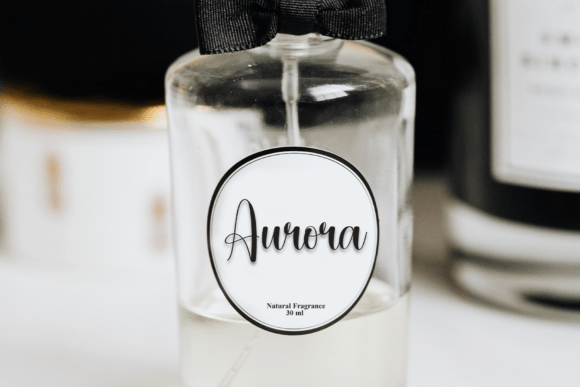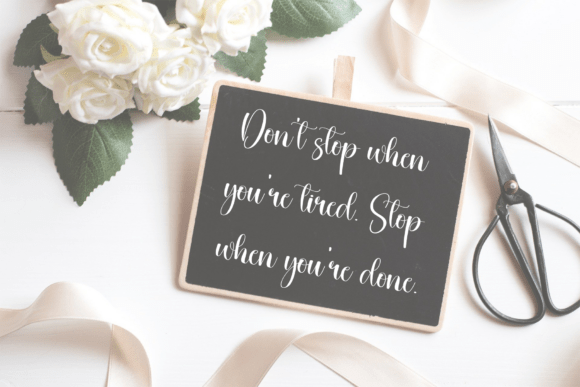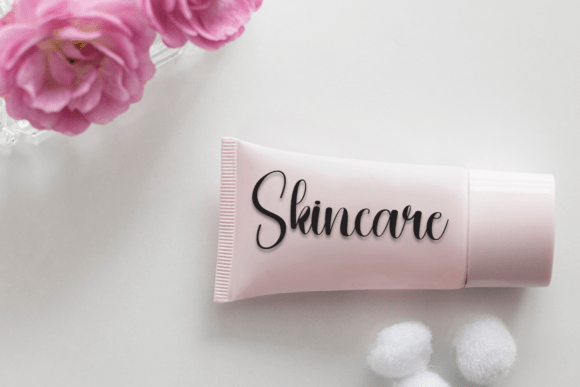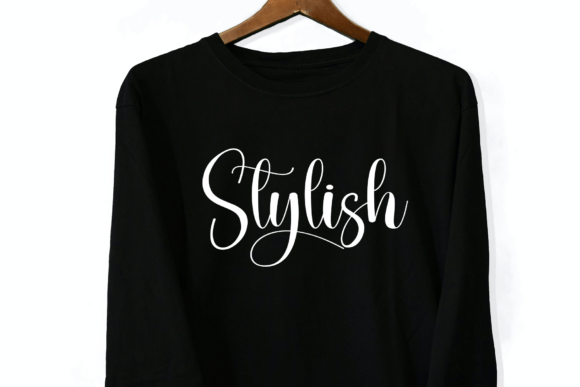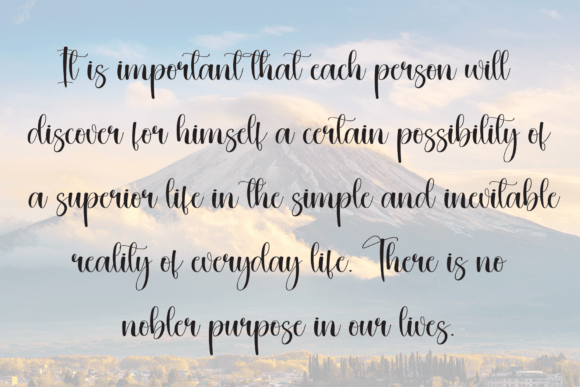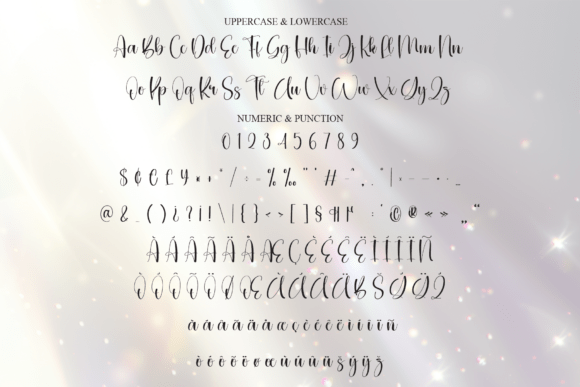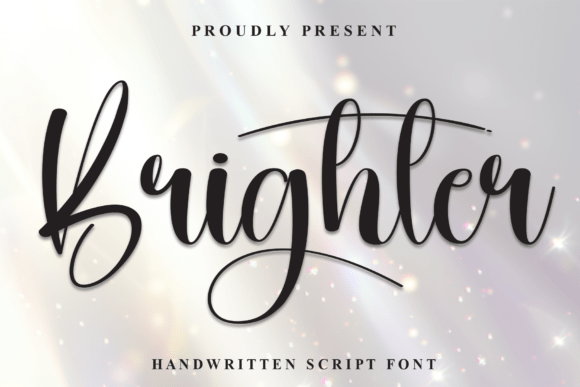
Introducing Brighter Font: Elevate Your Designs with Elegance and Sophistication
In the world of typography, few fonts manage to capture the essence of elegance and expressiveness as beautifully as Brighter Font. This stunning script font is designed to flow with effortless beauty, making it the perfect choice for designers and crafters looking to add a touch of sophistication to their projects. With its graceful curves and smooth connections, Brighter Font is ideal for creating romantic, refined, and timeless designs that leave a lasting impression.
The Beauty of Brighter Font
Brighter Font boasts a unique, handwritten feel that sets it apart from other script fonts. Its elegant and expressive letterforms are carefully crafted to convey a sense of luxury, making it perfect for high-end branding projects, wedding invitations, and social media graphics. The font’s fluid strokes and seamless connections create a beautiful, flowing effect that adds a touch of whimsy and romance to any design.
Perfect for Wedding Invitations and Branding Projects
Wedding invitations, save-the-date cards, and other romantic stationery are elevated to new heights with Brighter Font. Its sophisticated, cursive script exudes elegance and refinement, making it the perfect choice for couples looking to create beautiful, bespoke wedding stationery. Similarly, Brighter Font is an excellent choice for branding projects, logos, and packaging designs, where a touch of luxury and sophistication is desired.
Key Features of Brighter Font
- Elegant and Expressive: Brighter Font features beautiful, flowing letterforms that add a touch of sophistication to any design.
- Graceful Curves and Smooth Connections: The font’s fluid strokes and seamless connections create a stunning, handwritten effect.
- Timeless Charm: Brighter Font brings a touch of classic elegance to any design, making it perfect for romantic and refined projects.
- Versatile: Suitable for a wide range of design applications, including wedding invitations, logos, branding projects, and social media graphics.
Tips for Using Brighter Font
To get the most out of Brighter Font, consider the following tips:
- Pair with Simple Fonts: Combine Brighter Font with simple, sans-serif fonts to create a beautiful contrast and add visual interest to your design.
- Use for Headlines and Titles: Brighter Font is perfect for headlines, titles, and other display text, where its elegant and expressive letterforms can shine.
- Add a Personal Touch: Use Brighter Font to add a personal, handwritten touch to your designs, making them more relatable and engaging.
Brighter Font is a stunning script font that brings elegance, sophistication, and timeless charm to any design. With its beautiful, flowing letterforms and smooth connections, it’s the perfect choice for designers and crafters looking to create romantic, refined, and luxurious designs. Whether you’re designing wedding invitations, logos, branding projects, or social media graphics, Brighter Font is sure to elevate your designs to new heights.